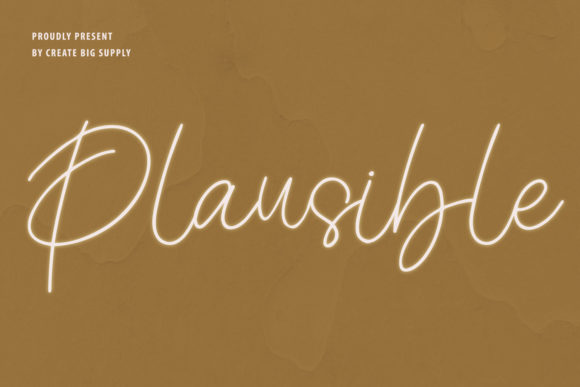
Immerse yourself in the world of Plausible, a script font family that exudes elegance and sophistication. This stunning creation by Create Big Supply captivates with its unique feel and mesmerizing impact, promising to add a touch of luxury to your design projects.
Plausible Script is a visual masterpiece, carefully crafted to emulate the natural flow and charm of handwritten text. Its graceful curves and delicate strokes evoke a sense of authenticity and intimacy, making it the perfect choice for personal branding, wedding invitations, heartfelt letters, and any project that demands a touch of heartfelt elegance.
Journey into the realm of Plausible's stylistic alternates, where each letter dances in harmony with the next, creating a visual symphony. Explore the limitless possibilities of ligatures, where letters intertwine seamlessly, adding an artistic flair to your words. With Plausible, you'll discover a font that transcends the ordinary, transforming your designs into captivating works of art.
Unleash your creativity with Plausible's PUA encoding, the gateway to a world of glyphs and ligatures. Access a vast array of symbols, swashes, and ornaments, effortlessly adding intricate details and flourishes to your designs. Elevate your projects to new heights, capturing the attention of your audience with every stroke.
Plausible Script is not just a font; it's an investment in exceptional design. Its versatility knows no bounds, seamlessly adapting to a myriad of projects, from heartfelt wedding invitations to captivating social media posts. Whether you're a seasoned designer or just starting, Plausible will elevate your work to new heights.
Embrace the allure of Plausible Script today and embark on a creative journey like no other. Let your designs bloom with elegance, charm, and sophistication. Experience the Plausible difference and unlock a world of endless possibilities.